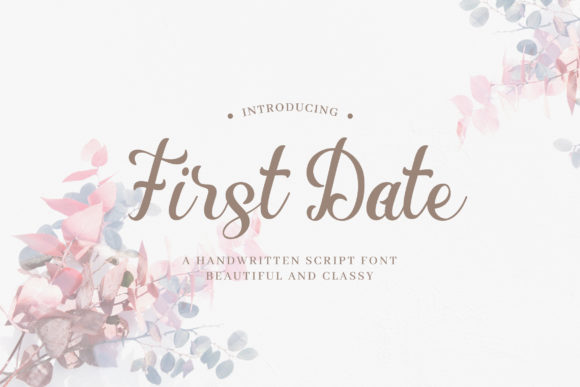
Introduce your business card to the world with First Date Font, an exquisite handwritten font crafted to make a lasting impression. Immerse yourself in its authentic feel and let your creativity blossom. Whether it's for logos, branding, product packaging, or any project demanding a touch of elegance, First Date Font is your perfect companion.
With its flowing curves and charming imperfections, First Date Font exudes a timeless allure. Each letter dances across the page, reflecting the artistry of handwritten notes. Its organic charm adds a personal touch to your creations, capturing the essence of genuine human connection.
Step into a world of possibilities with First Date Font. Its versatility knows no bounds, adapting seamlessly to various design styles. From classic and elegant to modern and playful, First Date Font elevates your projects with its inherent charisma.
Unlock your creative potential and embark on a typographic journey like no other. First Date Font is more than just a font; it's a gateway to express your unique style and captivate your audience. Let your imagination run wild as you craft designs that resonate with authenticity and charm.